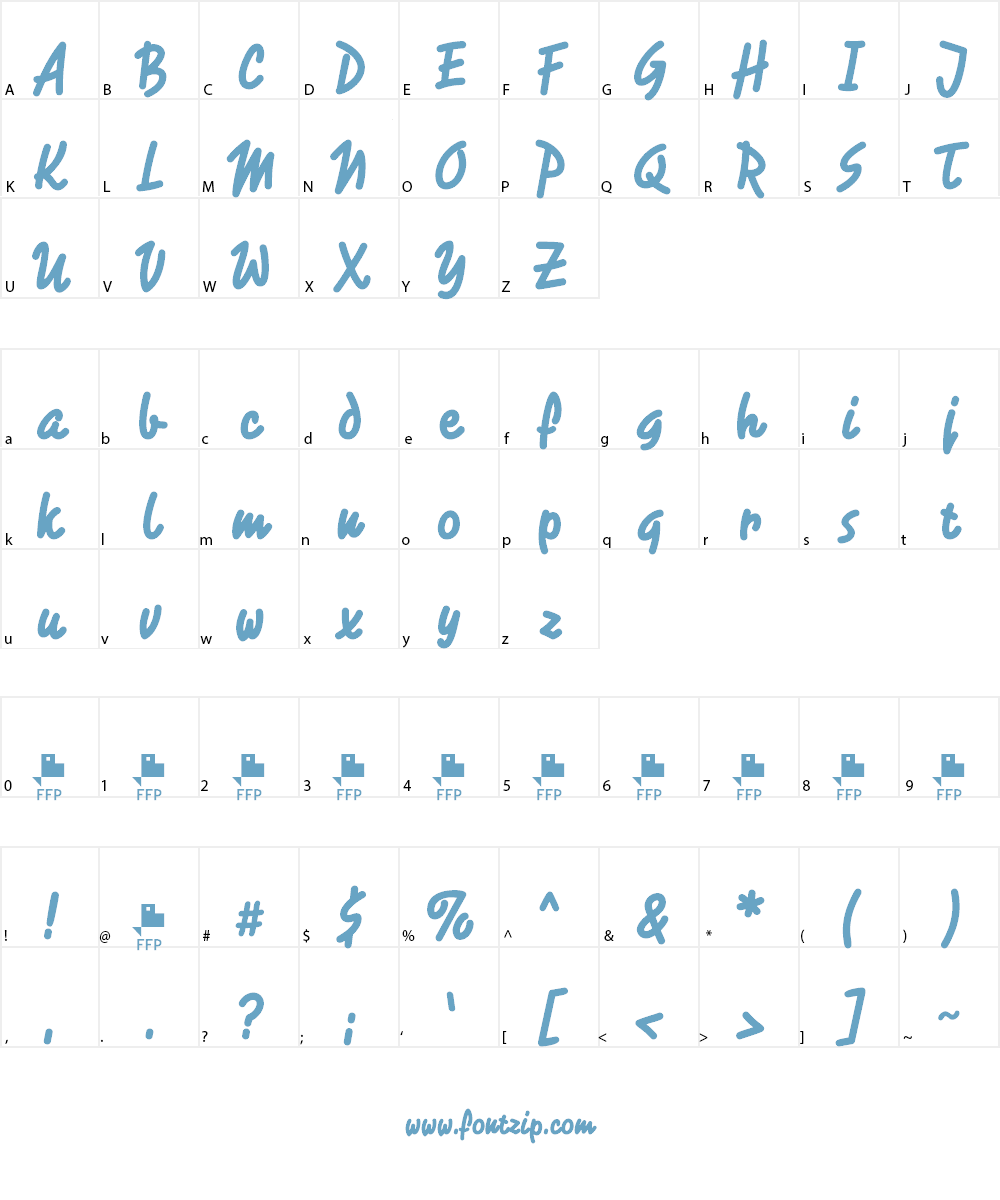
Rotulona Hand is a thick handwritten typography made with fat spherical tip pen, has a cheerful and carefree look is perfect for graphic design and advertising.